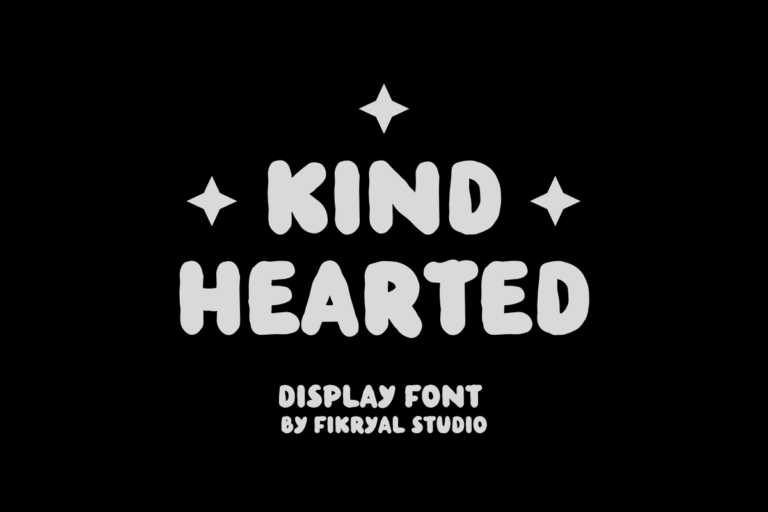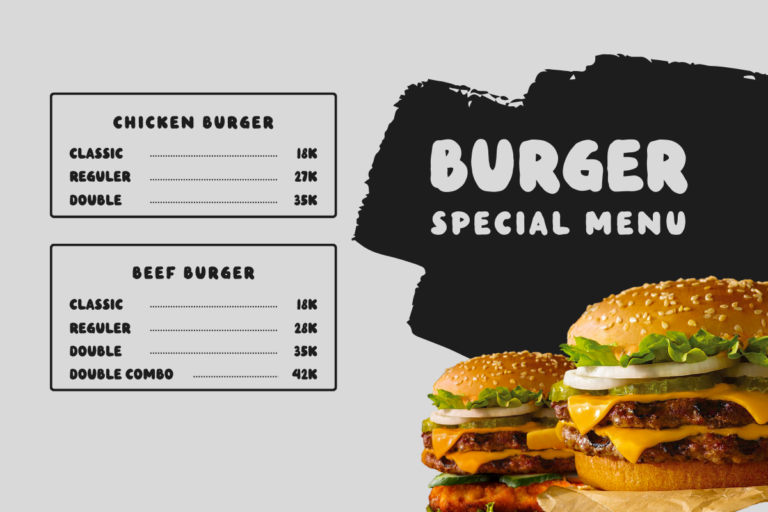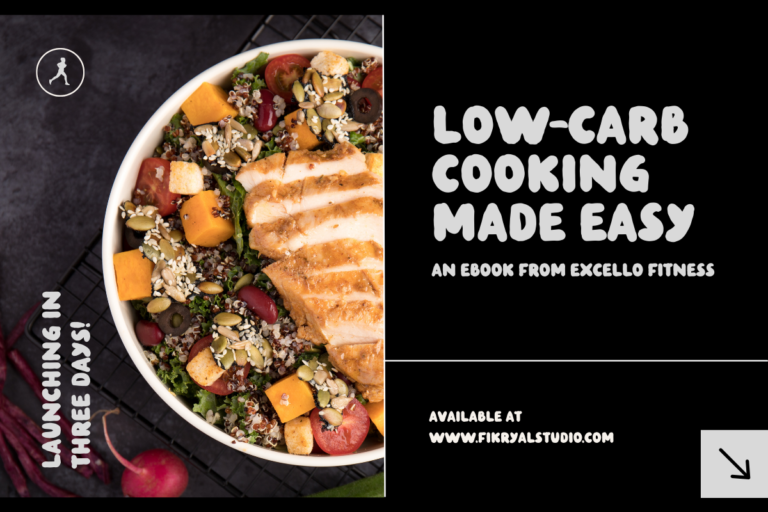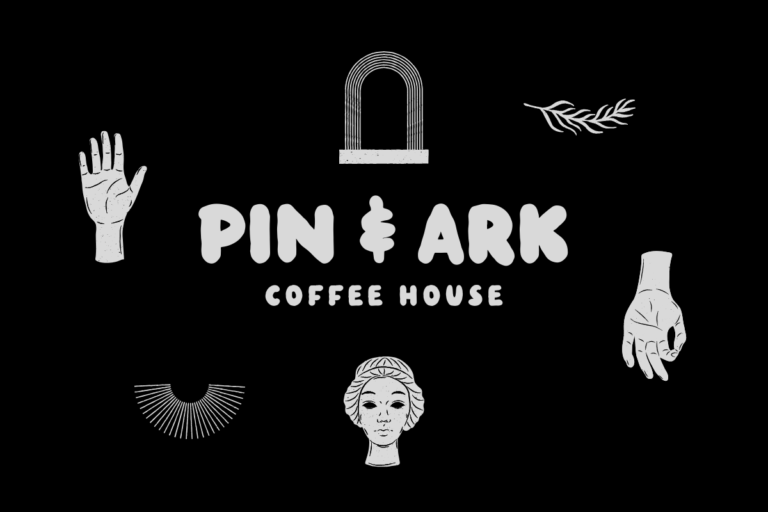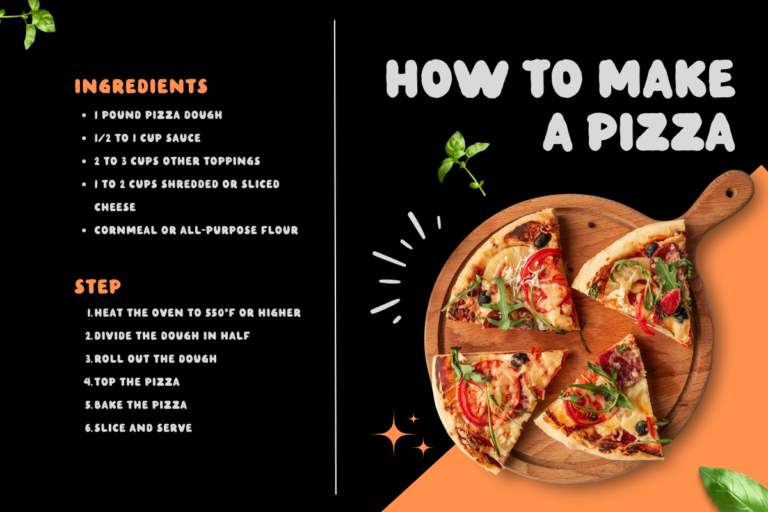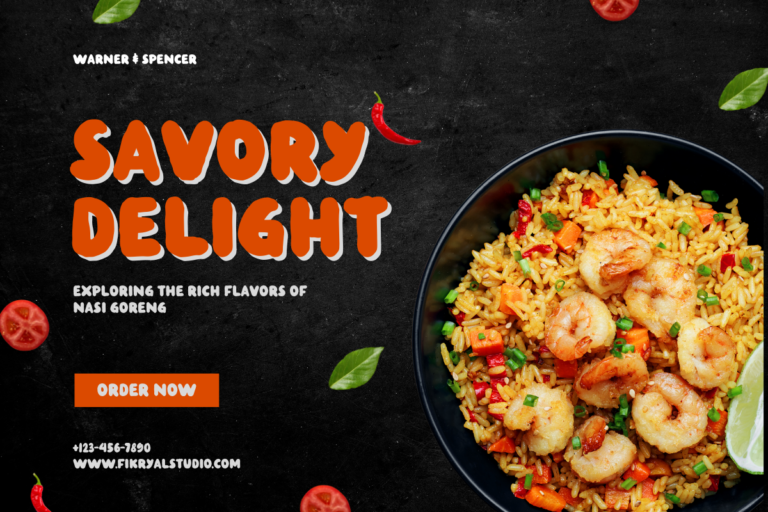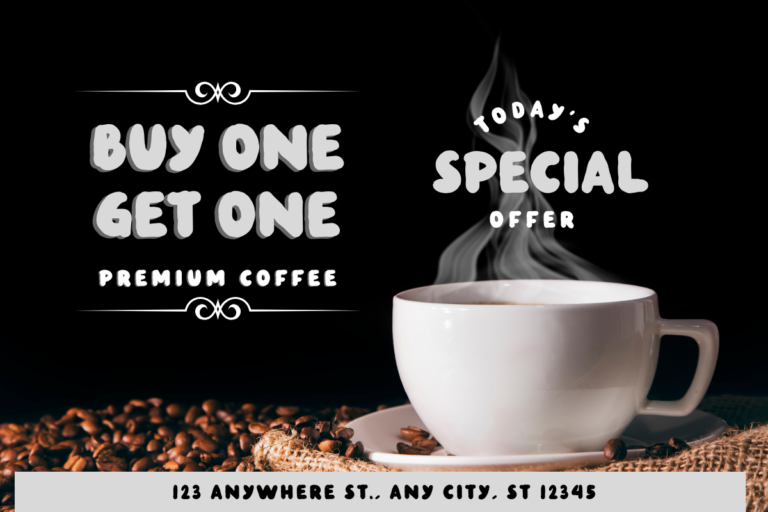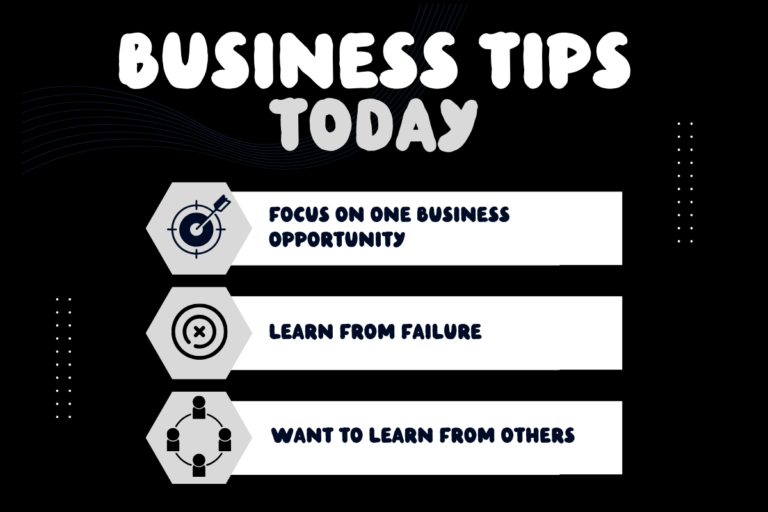
- Kind Hearted – Display Font
Kind Hearted is a display font with bold natural characters and contains capital letters. With a warm and friendly touch, this font conveys a homely and down-to-earth feel. Suitable for use in various design projects that require a homely impression, such as posters, logos, greeting cards, and so on.
This font can be applied to various design media such as:
Poster: This font can be used for the title or main text on a poster, giving it a friendly yet attention-grabbing impression.
Logo: Suitable for companies or brands that want to convey a warm and homely impression to customers.
Greeting Cards: This font can give a personal and warm touch to greeting cards, suitable for various occasions such as birthdays, weddings or sympathy messages.
Social Media Design: Used to create attention-grabbing social media content with a warm and friendly feel.
Merchandise Design: This font can be applied to merchandise designs such as t-shirts, mugs, or tote bags to give a unique and understated impression.